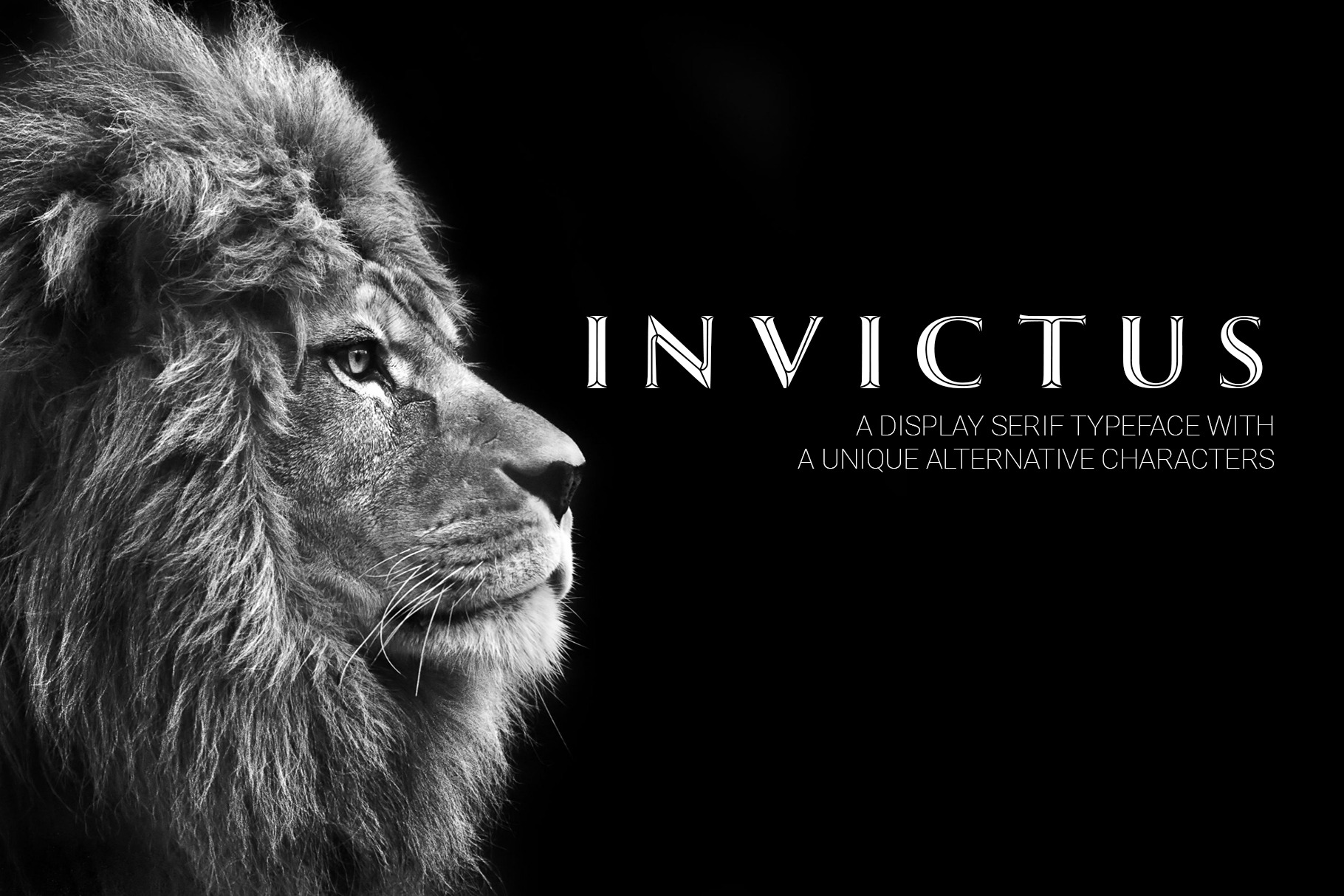
Invictus - Serif Typeface
Invictus is a serif typeface designed initially as a decorative font, but with a few changes to traditional aesthetics. Horizontal lines have been replaced with Modern themed ascenders to allow for more flow and versatility, in case the user intends to manipulate the typeface.
This type can be used for personal or professional projects such as online/offline magazines and/or books, posters, photography, websites, branding & identity, TV spots and much more.